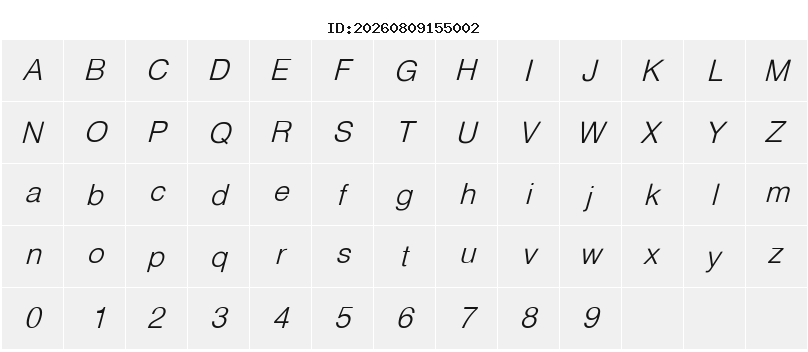
• Font Name: PartridgeObl-Li
• Full Font Name: PartridgeObl-Li
• PostScript Name: PartridgeObl-Li
About PartridgeObl-Li.ttf
PartridgeObl-Li.ttf is a modern, elegant sans-serif font designed for ultimate readability and visual harmony. Perfect for branding, headlines, web design, and print materials.